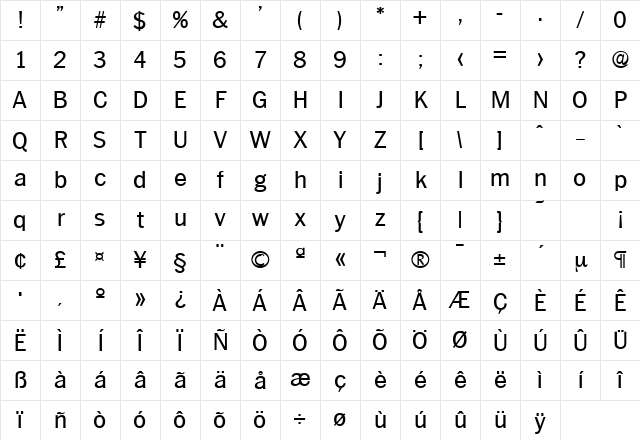
Complete Plymouth-Serial DB Regular glyph index. Displaying only characters natively supported by Plymouth-Serial DB Regular font.
Plymouth-Serial DB is a composed and adaptable typeface that performs quietly and consistently across a wide range of design contexts.